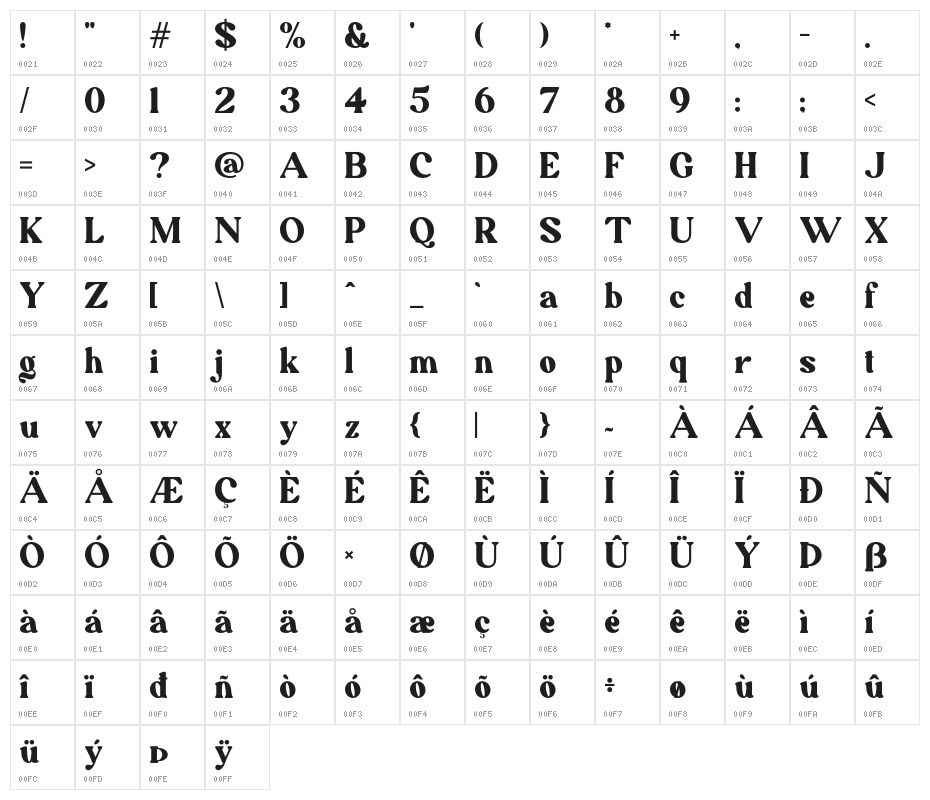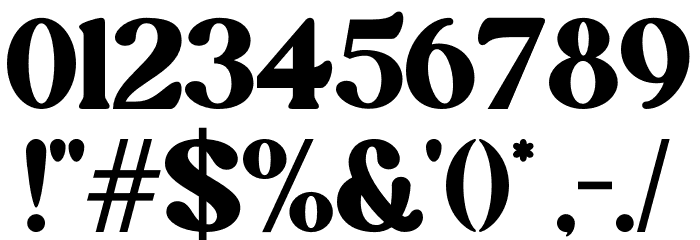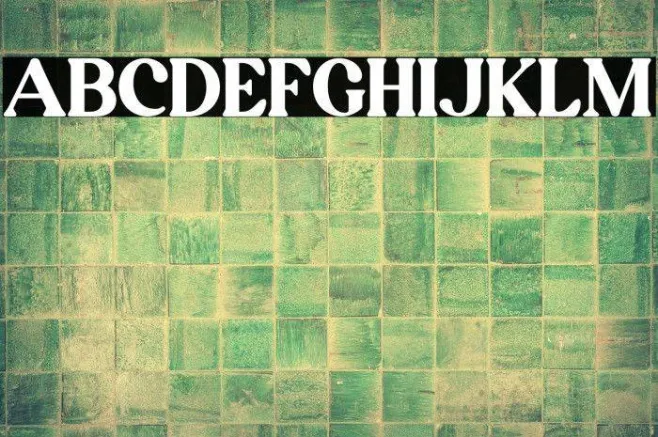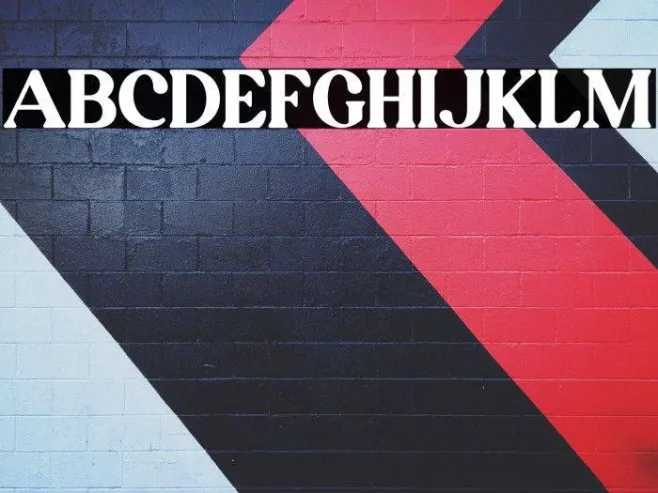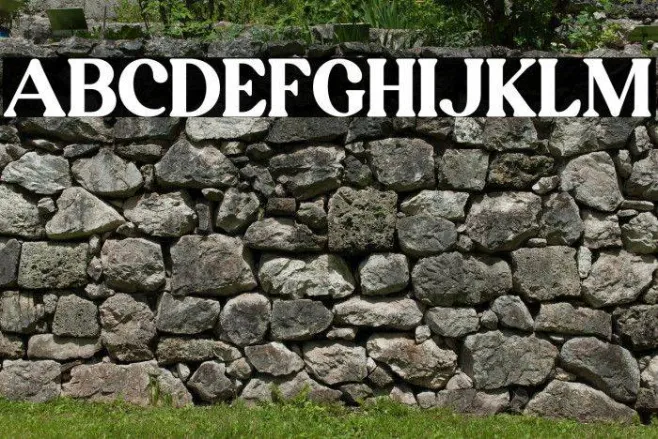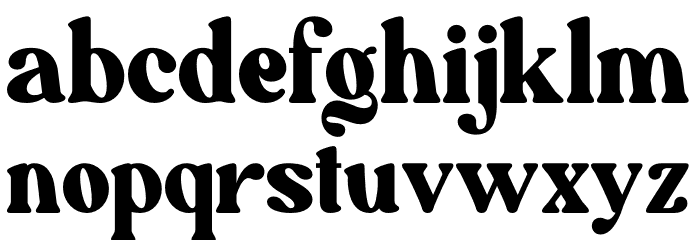
Adventuro Font
Adventuro Description
This font exudes a bold and adventurous spirit, characterized by its thick, robust strokes and high contrast between thick and thin lines. The serifs are pronounced, adding a touch of elegance and classic appeal. The uppercase letters are strong and commanding, while the lowercase letters maintain a playful yet sophisticated look. The numerals are clear and distinct, ensuring readability. Special characters are well-integrated, maintaining the overall aesthetic. This font is ideal for making a statement, with its eye-catching design and timeless style.
| Proposed Projects | Perfect for branding, headlines, posters, and any project that requires a strong, classic presence. |